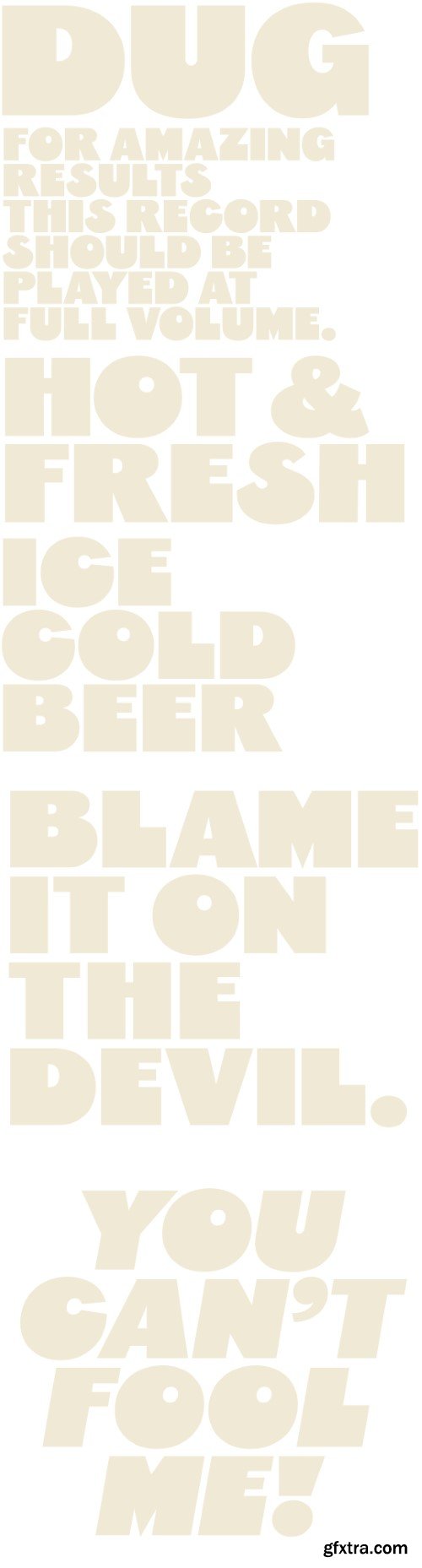
杜龟字体家族
Dug is a bottom-heavy, ultra bold display family that evokes the personality and warmth of the best fonts of the psychedelic era. Dug is available in 3 standard styles as well as matching italic versions. For even more versatility and added control, Dug is also available as a variable font.